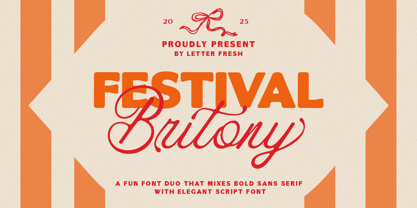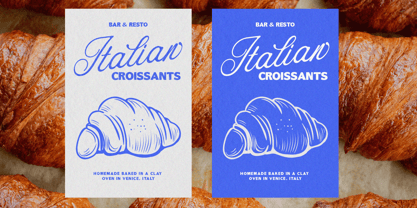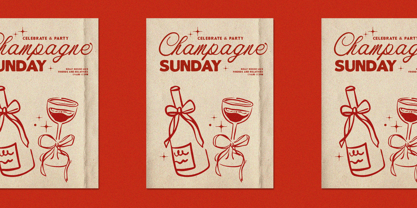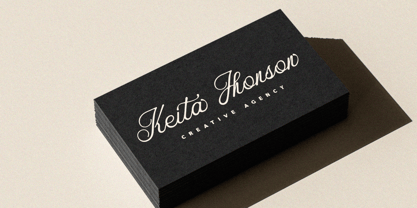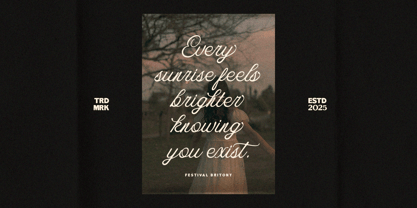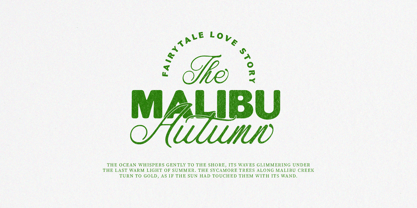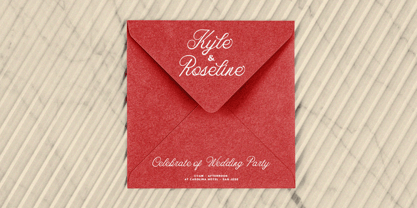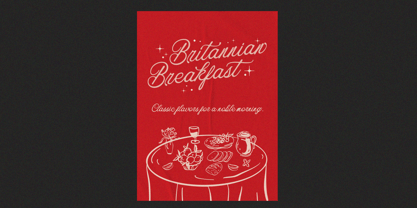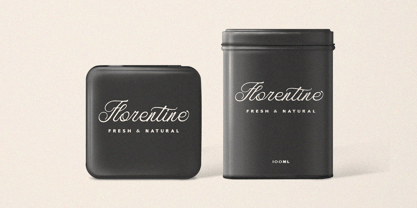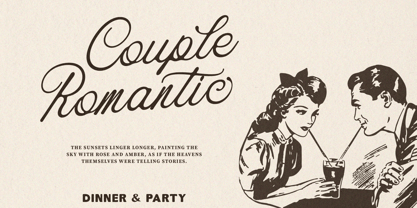
Festival Britony Script
The Festival Britony Script Font Family was designed by Rizki Andika and published by Letterfreshstudio. Festival Britony Script contains 2 styles and family package options. More about this family
Festival Britony is a dynamic duo font that combines script and sans-serif styles, perfect for adding a vintage yet modern touch to your designs. With its smooth curves, retro aesthetic, and strong look, this font is ideal for logos, branding, packaging, apparel, signage, and social media graphics. The script font exudes energy and personality, while the sans-serif font ensures clarity and flexibility.